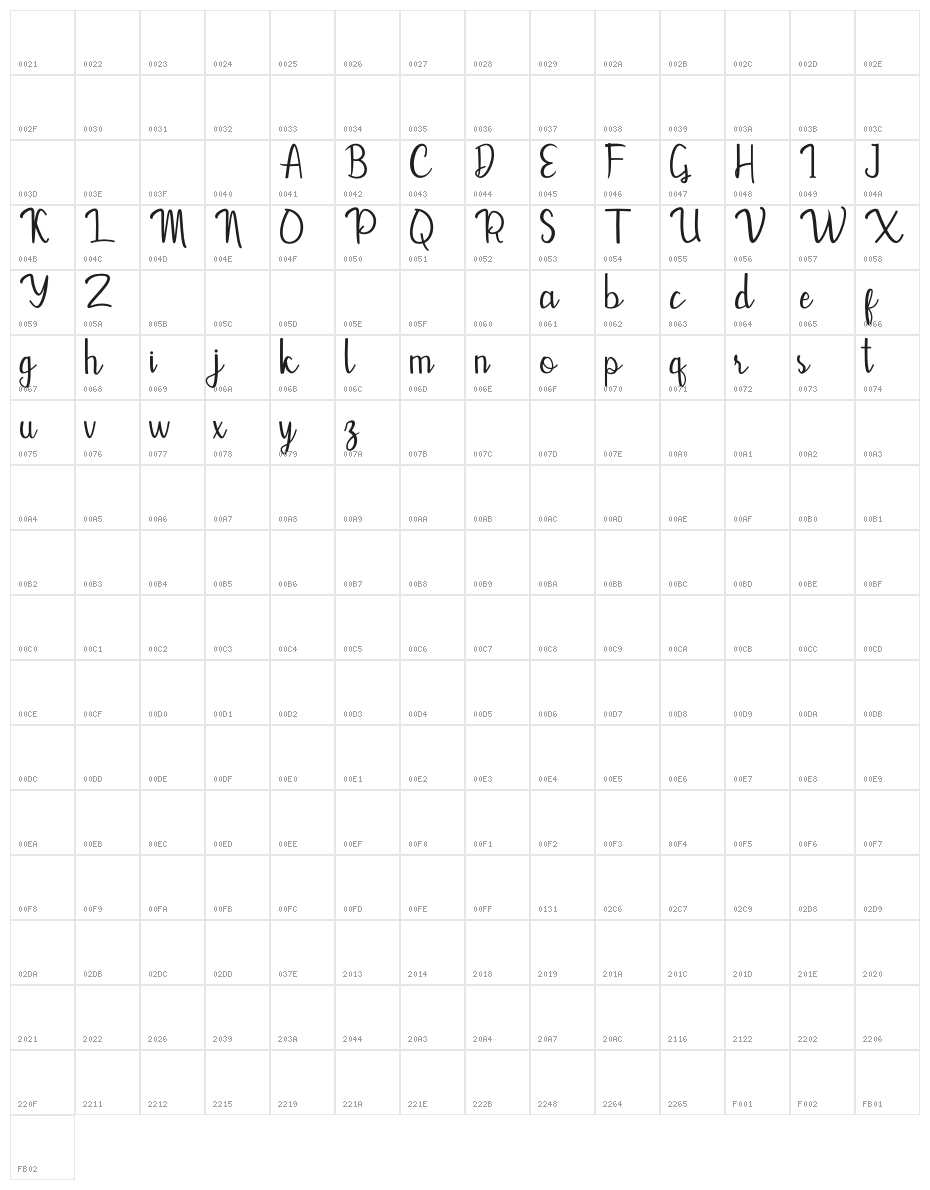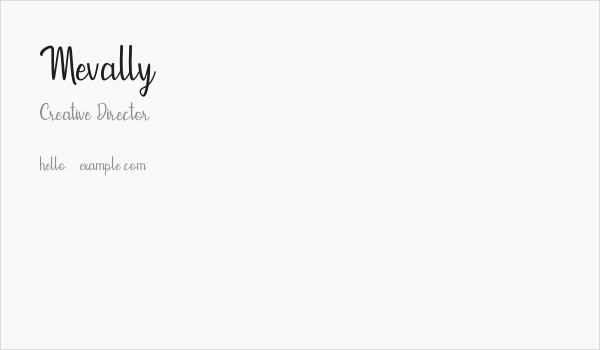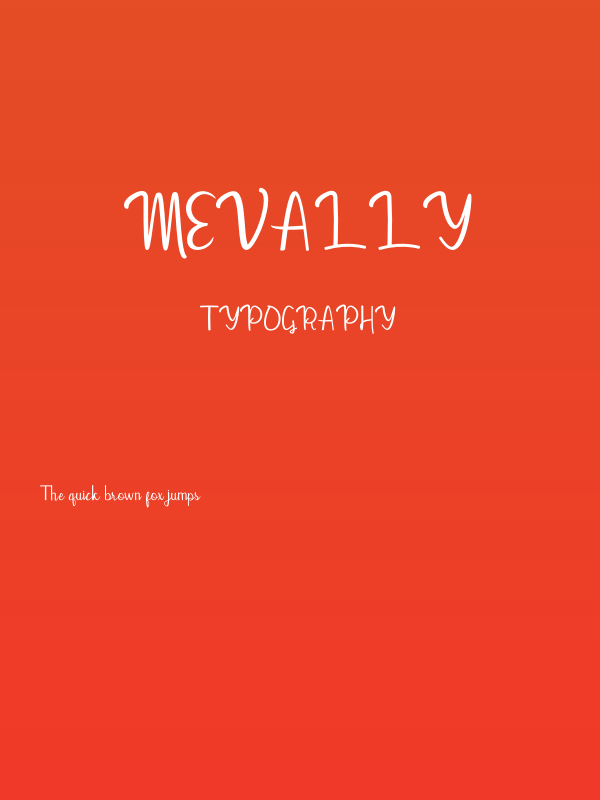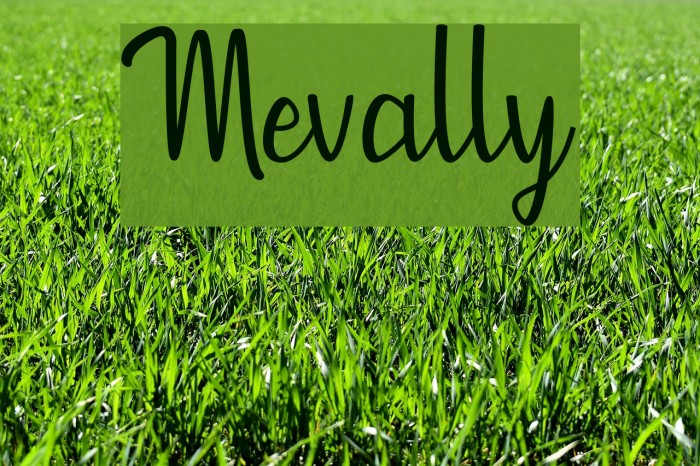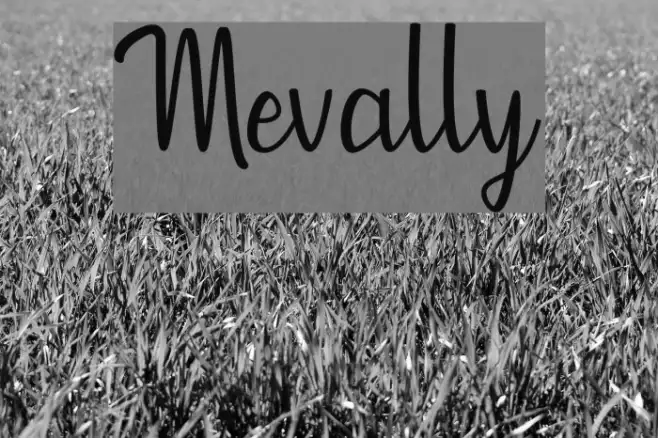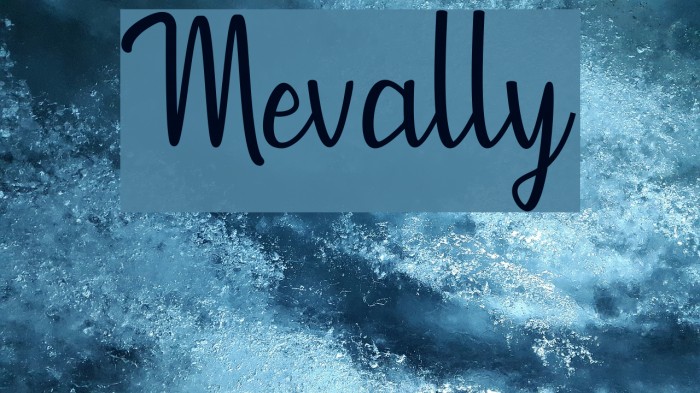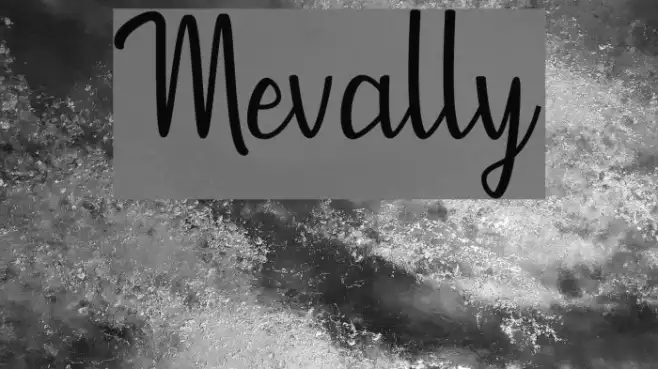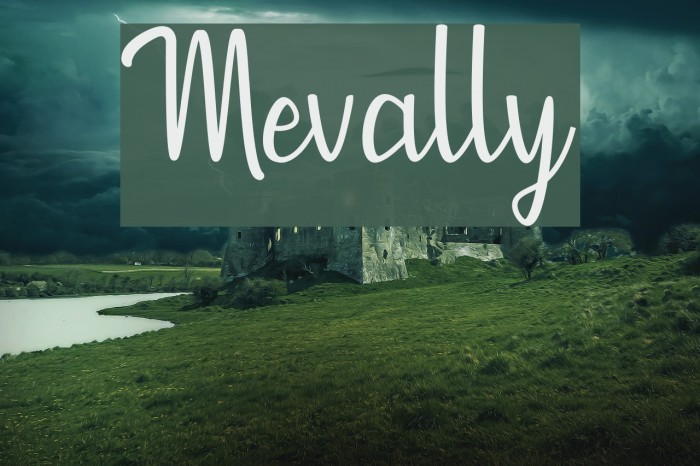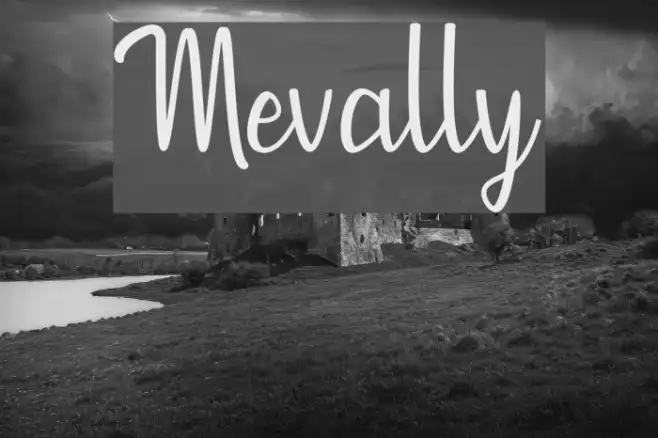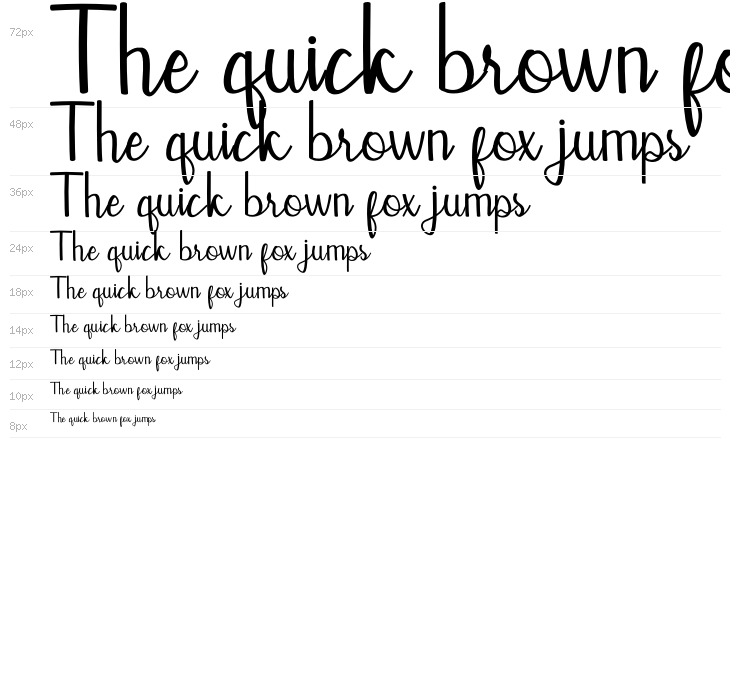
Mevally Font
Mevally Description
This font features a playful and whimsical script style with a handwritten appearance. The uppercase letters are tall and slightly narrow, with a consistent stroke width that gives them a clean and modern look. The lowercase letters are more fluid and connected, adding a touch of elegance and charm. The overall design is casual yet sophisticated, making it suitable for a variety of creative projects. The characters have a moderate spacing, ensuring readability while maintaining the font's unique character. This font is ideal for projects that require a personal and friendly touch.
| Proposed Projects | Greeting cards, invitations, branding, and social media graphics. |